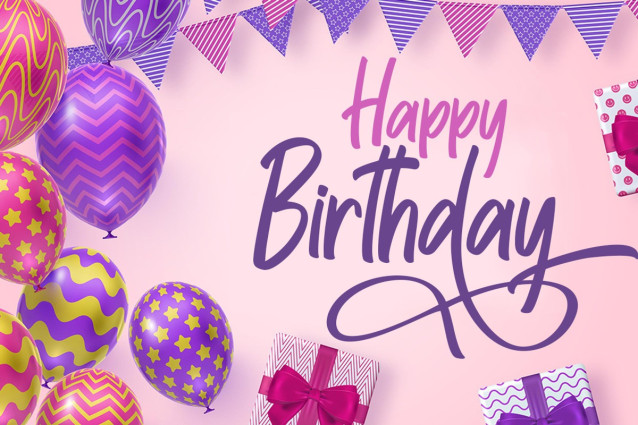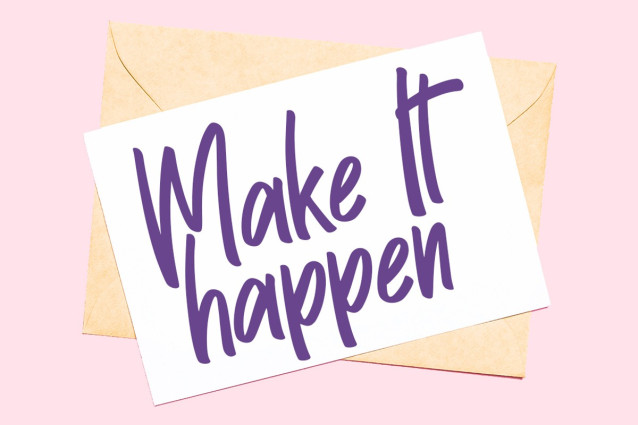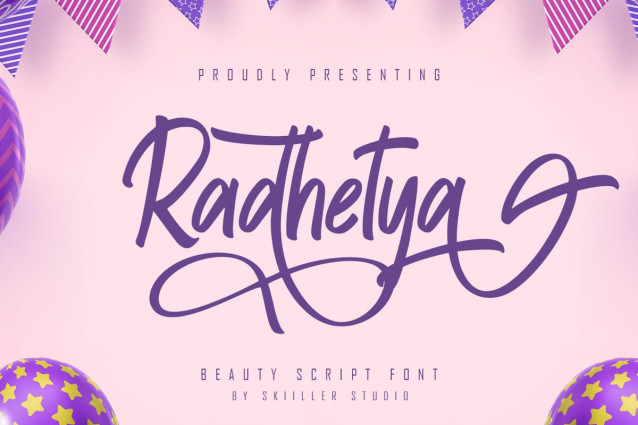
Radhetya Script Font
Radhetya Script Font with a unique feel and a stunning impact. It will add a luxury spark to any design project that you wish to create! This font is PUA encoded which means you can access all of the amazing glyphs and ligatures with ease!